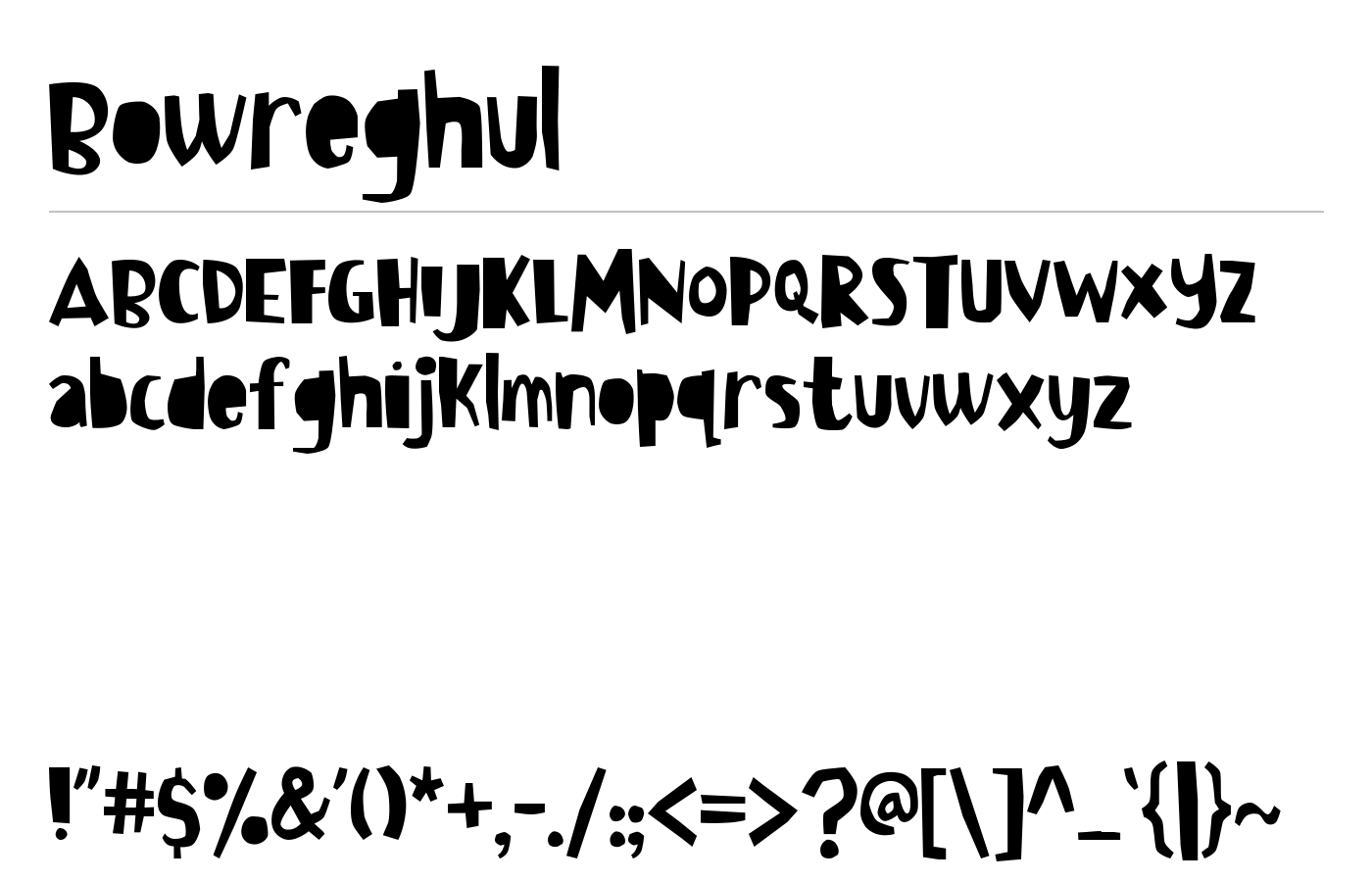
Bowreghul is a playful and quirky sans serif font with irregular, chunky letterforms that give it a lively, handcrafted feel. Its uneven strokes and bold weight make it perfect for creative and informal designs, lending a fun and approachable personality that works well in children’s books, posters, and casual branding. This font stands out with its unique charm, ideal for projects seeking a friendly and distinctive look.
Bowreghul Font
About Bowreghul Font